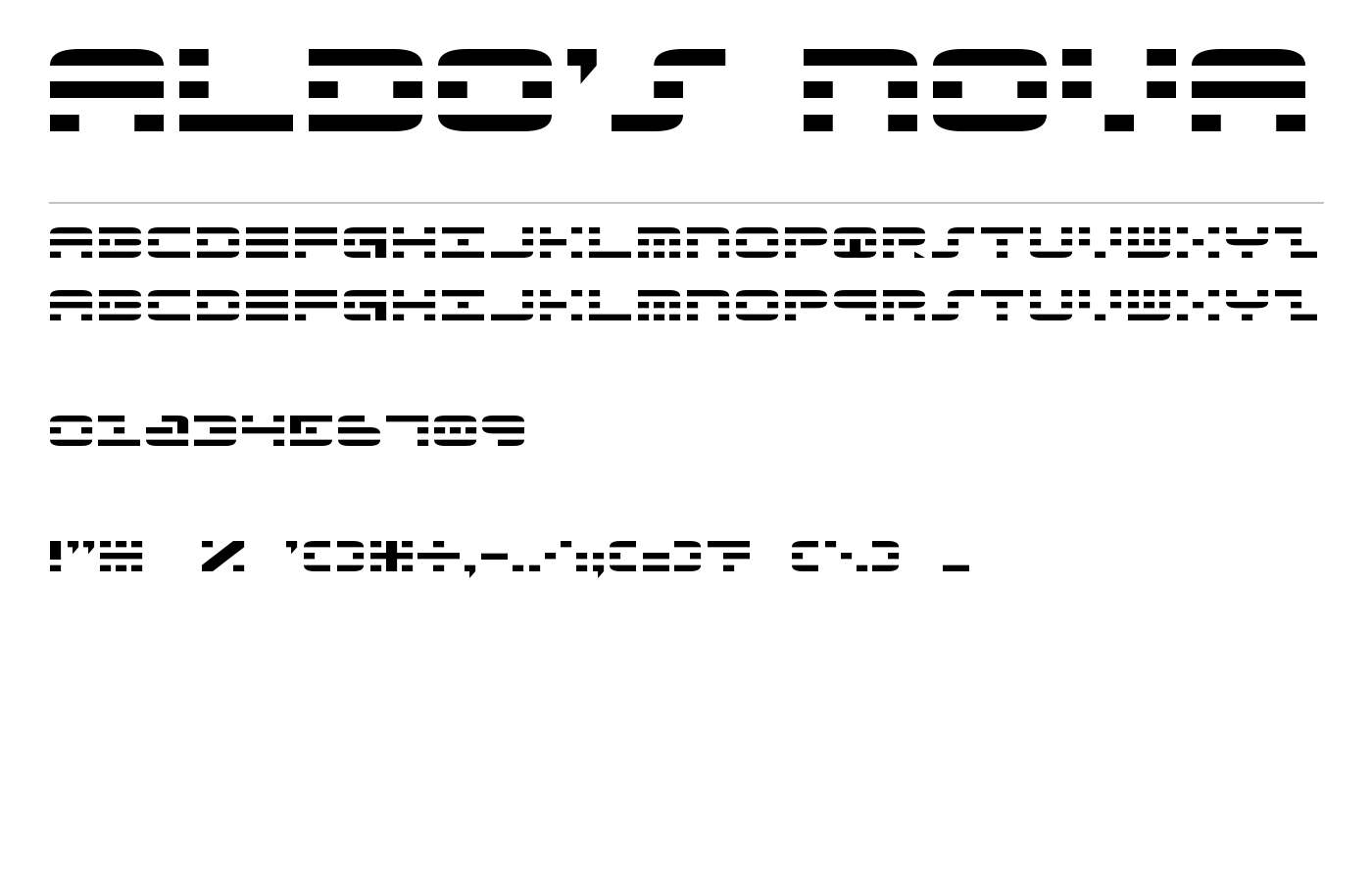
Aldo's Nova is a futuristic, stencil-inspired sans serif font characterized by its bold weight and geometric, segmented letterforms that create a digital, tech-savvy feel. With its high x-height and tight spacing, it projects a modern and edgy personality, making it perfect for technology branding, sci-fi themed designs, and striking display headlines. This font works well where a cutting-edge, industrial look is needed, especially in logos, posters, and digital interfaces.
Aldo's Nova Font